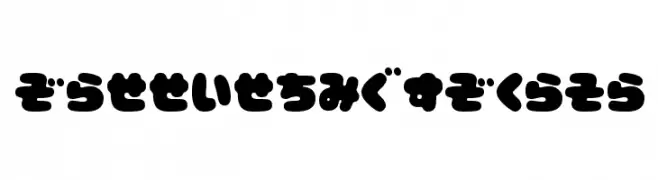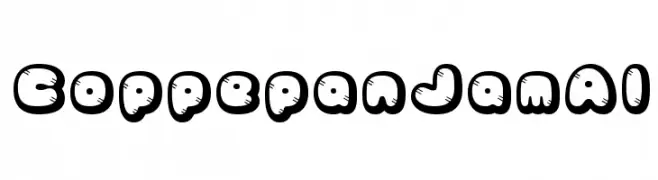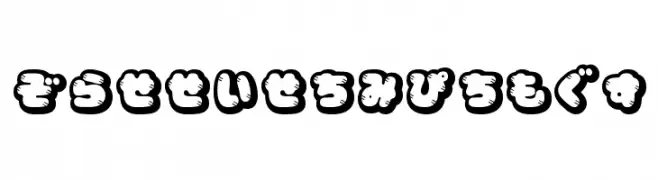
• AirlineHR
( Fonts by Maniackers Design - www.mksd.jp OFF SITE )
A bold, geometric font with a modern and futuristic style.
• AirlineAL
( Fonts by Maniackers Design - www.mksd.jp OFF SITE )
A bold, geometric font with a futuristic and modern style.
• AirlineKT
( Fonts by Maniackers Design - www.mksd.jp OFF SITE )
A bold, futuristic font with geometric and dynamic styling.
• 2AstroKT
( Fonts by Maniackers Design - www.mksd.jp OFF SITE )
Bold, geometric font with a modern, futuristic style.
• CoppepanHrChoco
( Fonts by Maniackers Design - www.mksd.jp OFF SITE )
A playful, bold font with rounded, bubble-like characters.
• CoppepanCreamKt
( Fonts by Maniackers Design - www.mksd.jp OFF SITE )
A playful, bold font with rounded, bubble-like characters.
• CoppepanJamHr
( Fonts by Maniackers Design - www.mksd.jp OFF SITE )
A playful, bold font with a cartoonish, bubbly style and thick outlines.
• CoppepanCreamHr
( Fonts by Maniackers Design - www.mksd.jp OFF SITE )
A playful, bold, and rounded font with a cartoonish, bubble-like appearance.
• CoppepanKtChoco
( Fonts by Maniackers Design - www.mksd.jp OFF SITE )
A bold, playful font with rounded edges and a bubbly appearance.
• CoppepanJamAl
( Fonts by Maniackers Design - www.mksd.jp OFF SITE )
A playful, bubbly font with bold, rounded characters and a cartoonish style.